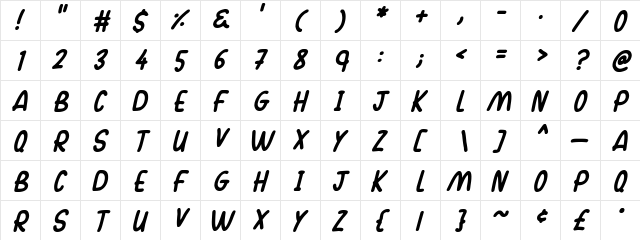
Walking Italic
Design Context for Walking Typeface
Walking takes a measured approach to typography — its balanced proportions and neutral character make it a reliable workhorse for both digital and print work. The slanted form adds forward momentum and visual energy.
Pro Tip: Use Walking for emphasis, pull quotes, and subheadings where its slanted energy can add rhythm to the layout.